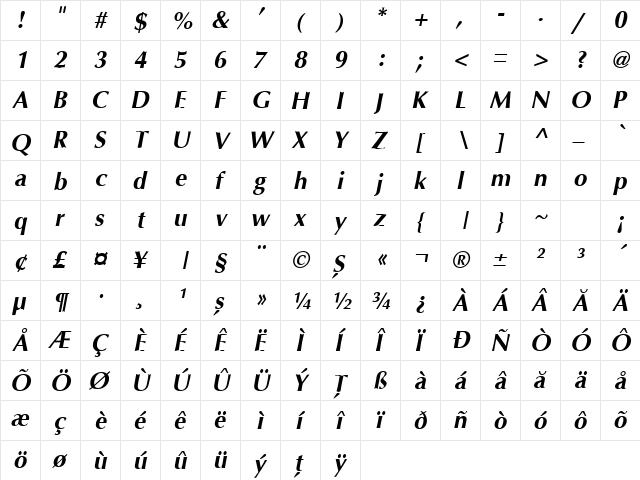
Ottawa Rom Bold Italic
Design Context for Ottawa Rom Typeface
Ottawa Rom is a composed and adaptable typeface that performs quietly and consistently across a wide range of design contexts. The slanted form adds forward momentum and visual energy. Its bold stroke weight gives it real presence on the page.
Pro Tip: Try Ottawa Rom for annotation and caption copy alongside an upright companion — the contrast in angle creates a dynamic but ordered typographic system.